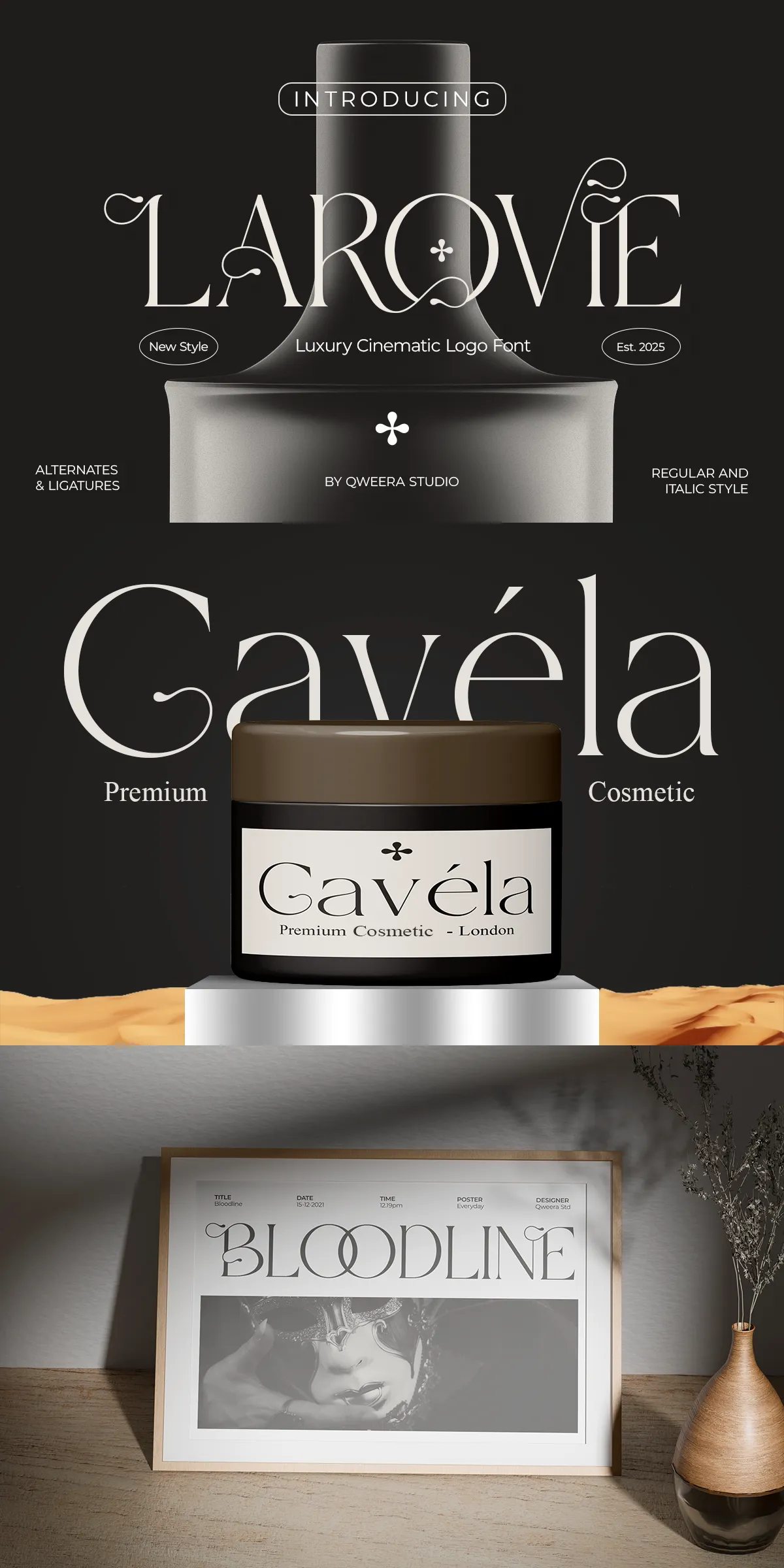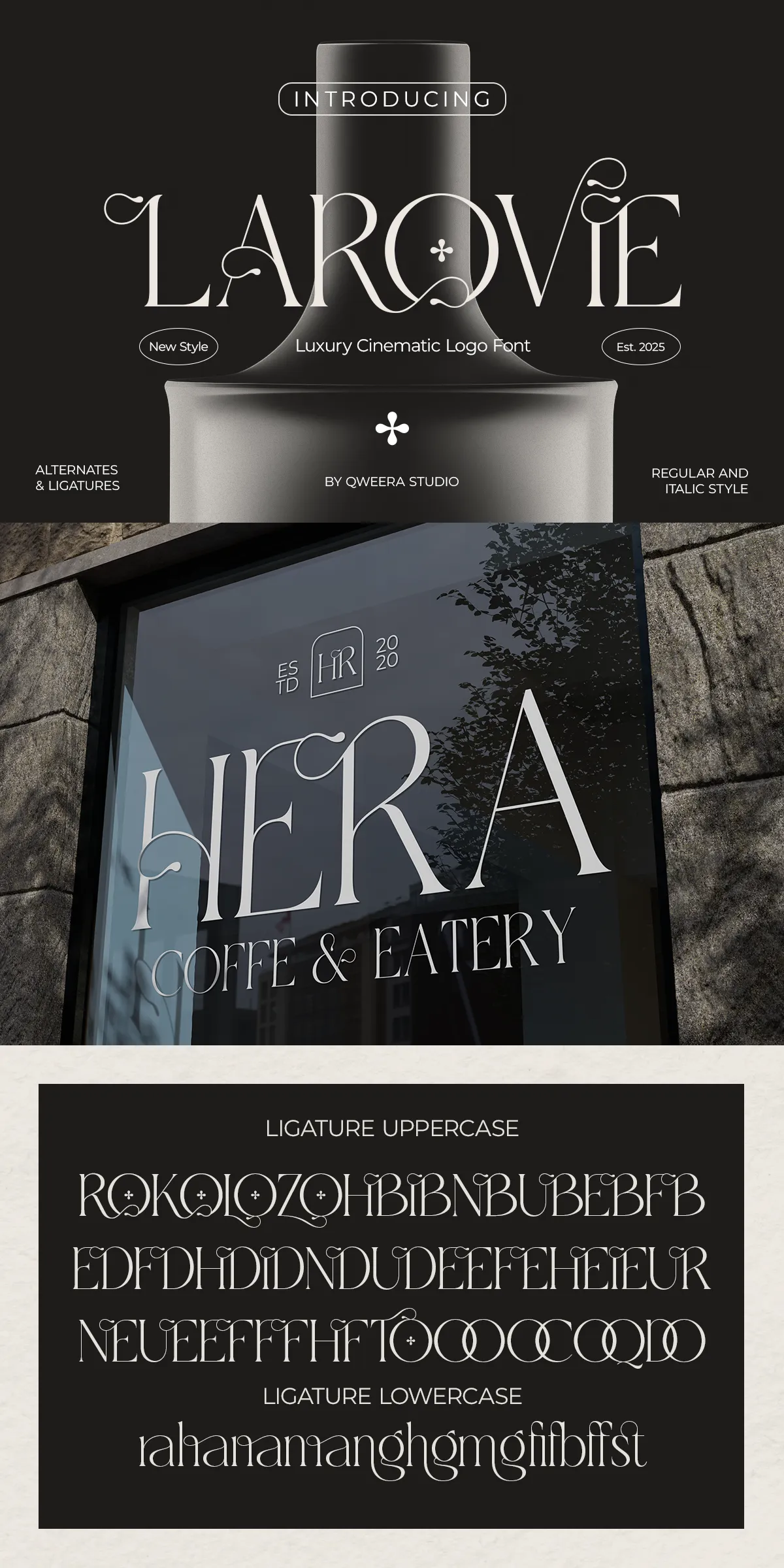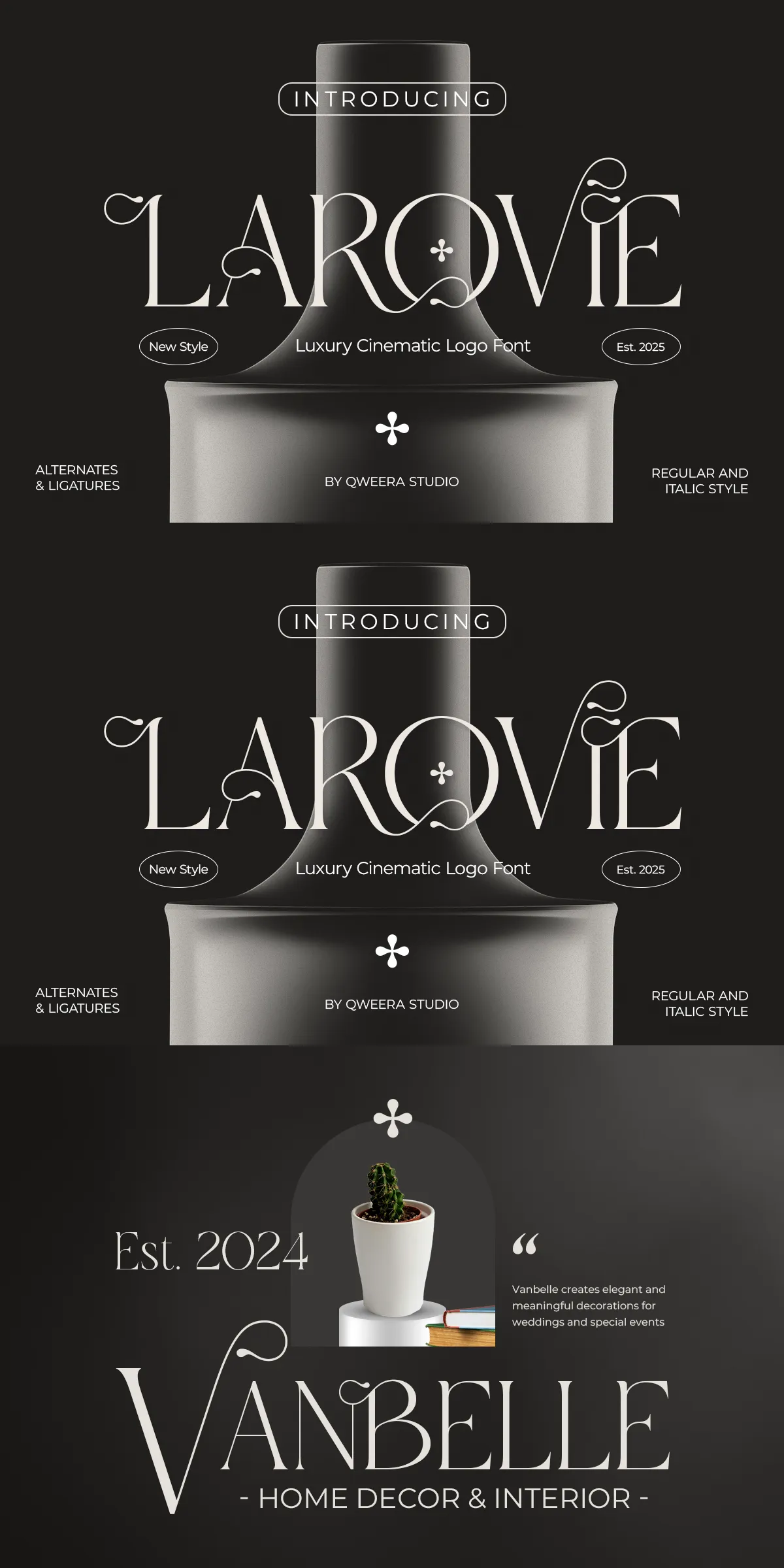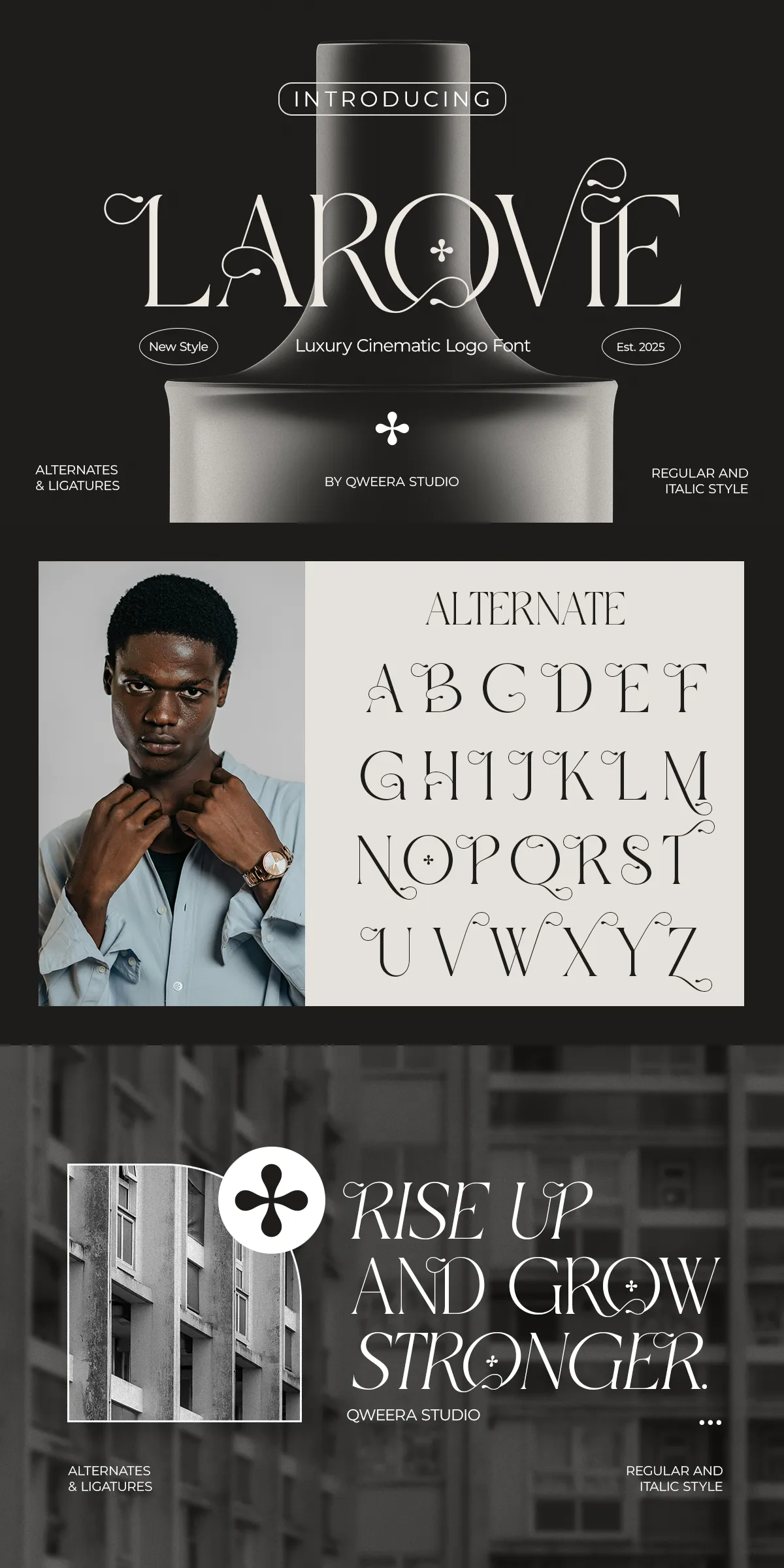
Larovie brings a cinematic flourish to contemporary design. This modern luxury serif emphasizes refined contrast, graceful curves, and decorative details that elevate any identity. Designers choose Larovie when projects require a confident, high-end typographic voice that reads clearly while projecting prestige. Built for both display and identity use, Larovie performs strongly in logos, editorial headlines, and premium packaging. Its carefully shaped serifs and elegant alternates allow designers to craft distinct wordmarks, impactful headlines, and polished layouts that feel both timeless and current.
Why Choose Larovie For Luxury Branding And Visual Storytelling
Larovie actively strengthens brand messages with type that communicates quality and intentionality. The typeface pairs pronounced vertical contrast with soft, sculpted terminals to create a look that reads cinematic and poised. When used in logos and headlines, Larovie asserts a premium presence; when paired with neutral body type, it anchors entire visual systems with refined hierarchy. Larovie also adapts to varied materials and scales: it prints beautifully on textured stock, performs online with optimized webfonts, and scales confidently across packaging and signage. Choose Larovie to signal sophistication, elevate product perception, and craft visual narratives that feel curated.
Distinctive Design Features And Decorative Details Of Larovie
Larovie offers a suite of stylistic and functional features designed for high-impact typography. Its elegant decorative elements include alternate letters and ligatures that create smooth, organic connections in logotypes and display words. The italic style introduces dynamic motion for emphasis and subheads, while the regular style delivers structural clarity. Larovie’s refined counters and open bowls maintain legibility even at smaller sizes, whereas its display proportions shine in large-format headlines. Each glyph receives considered spacing and kerning to ensure reliable composition across different media.
Complete Feature Set And Technical Delivery For Seamless Workflow
- Uppercase and lowercase character set for full typographic flexibility
- Regular and italic styles to support hierarchy and expressive needs
- Alternates and ligatures for bespoke wordmarks and elegant display treatment
- Multilingual support for broad Latin-based language coverage
- Optimized kerning and spacing to ensure consistent results at all sizes
How To Use Larovie In Real-World Creative Projects
Apply Larovie to craft boutique logos that demand a poised personality and instant recognition. Use the alternates and ligatures to design distinctive wordmarks that read as handcrafted. Employ the italic for invitation headlines and editorial pull quotes to add motion and elegance. Pair Larovie with a clean, neutral sans-serif for body copy to preserve readability while allowing the serif to carry the visual tone. When designing packaging, test proofs on both coated and uncoated stocks to fine-tune perceived weight and contrast.
Ideal Applications And Practical Examples For Larovie In Design
Larovie suits a wide range of premium use cases. Use it for luxury logos and brand identity systems that require a refined voice. Apply it to fashion campaigns and lookbooks where dramatic headlines establish mood. Deploy it in editorial layouts and magazine covers to create cinematic titles and expressive spreads. Use Larovie on beauty and skincare packaging to convey craftsmanship and material quality. It also works well for wedding stationery, invitations, and boutique signage where an elegant, timeless touch matters.